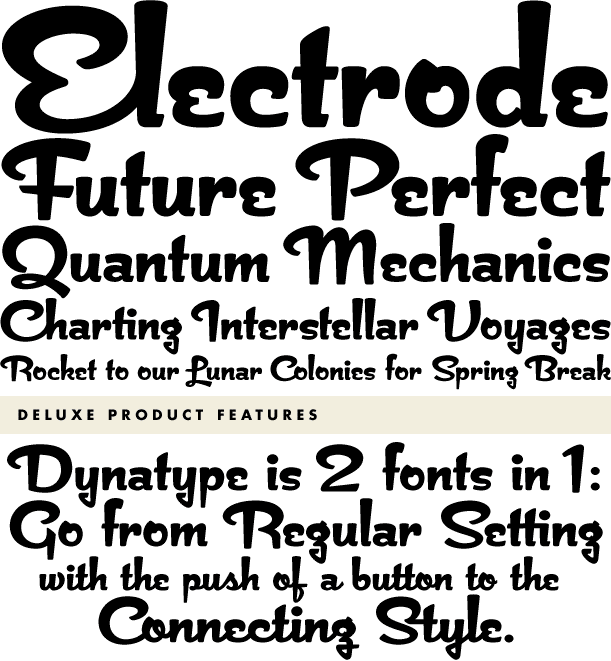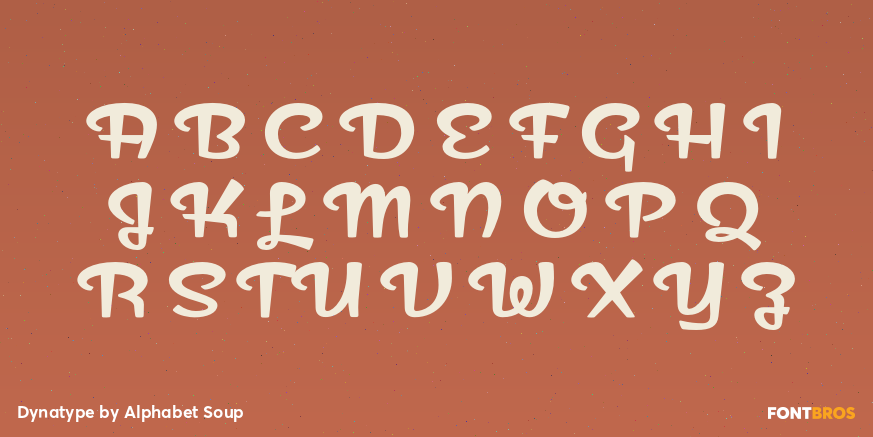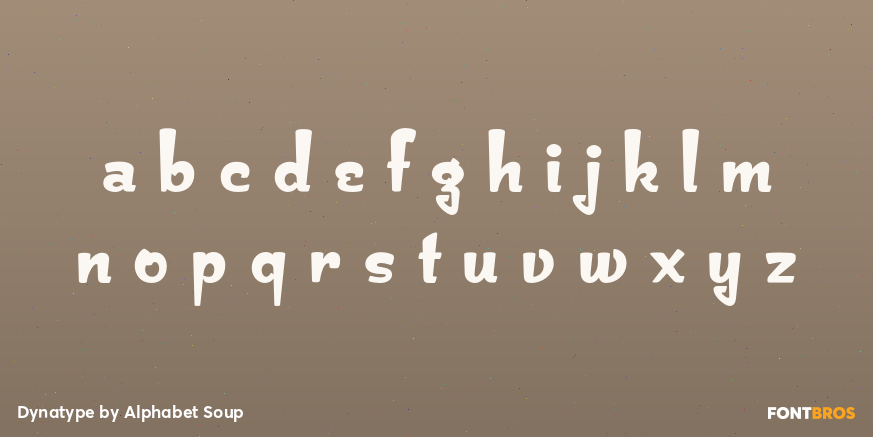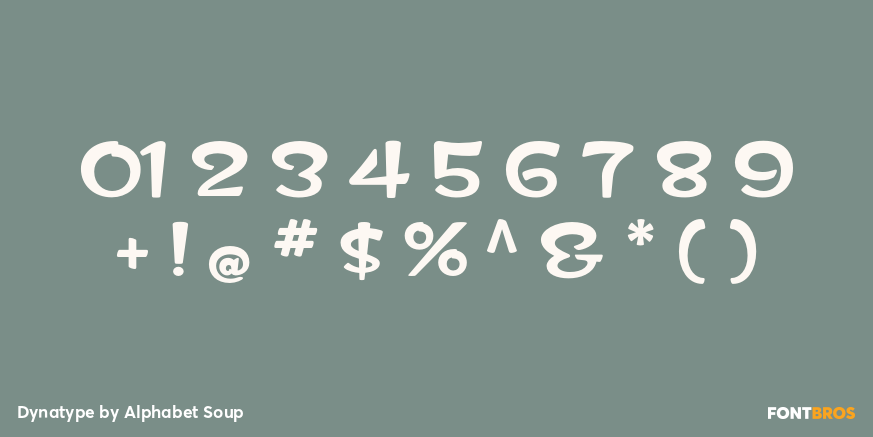
Dynatype
Font Family by Alphabet Soup
Dynatype is the upright, slightly more formal cousin of Dynascript. It shares many of the characteristics of it's slightly older relation, but is drawn entirely from scratch and has it's own unique character. To some it may be reminiscent of various mid-century neon signage, and of sign writing, Speedball alphabets and even baseball scripts.
Special Feature: "Suddenly... it's the World of Tomorrow!" With the push of a button Dynatype automates your typesetting experience. Dynatype is actually "Two fonts in One"?without switching fonts you can instantly change from Dynatype's "regular" style to its alternate connecting version with the simple push of a button.